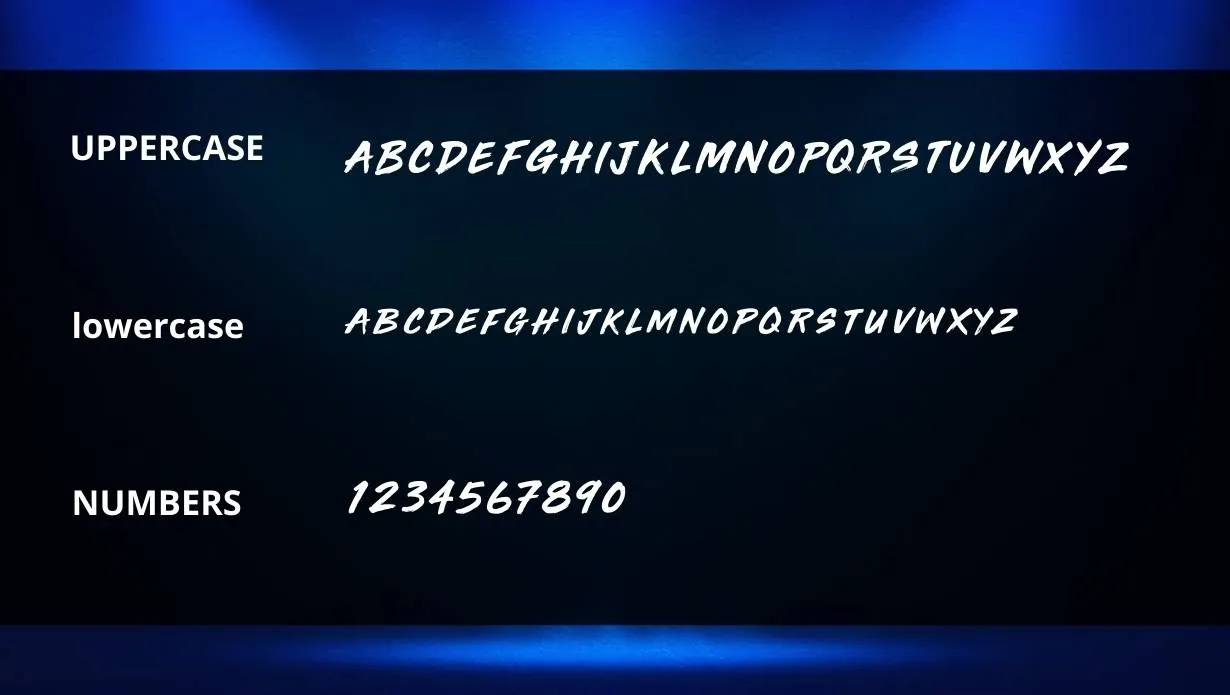
Third Rail Font was created in 2006 by Graphic Designer Justin Norman. It belongs to a unique brush category. The font was inspired by the lettering on old American railroad cars. Third Rail Typeface is perfect for titles, headlines, and other display uses.